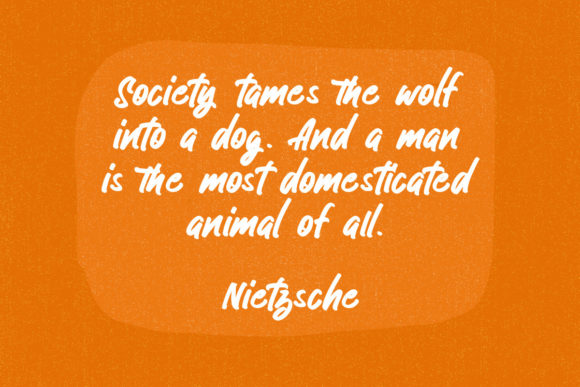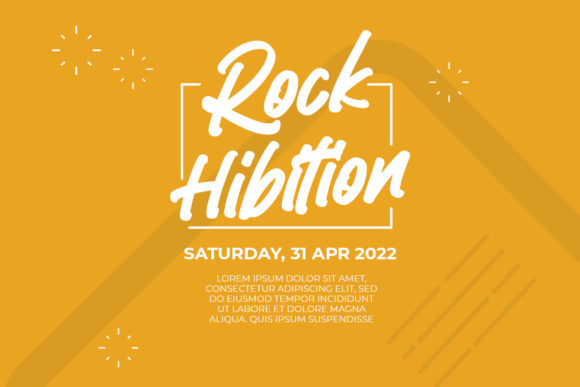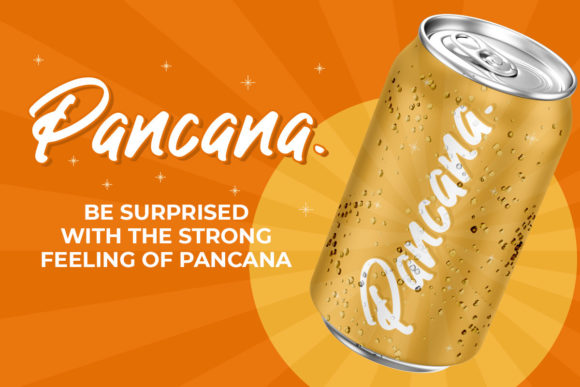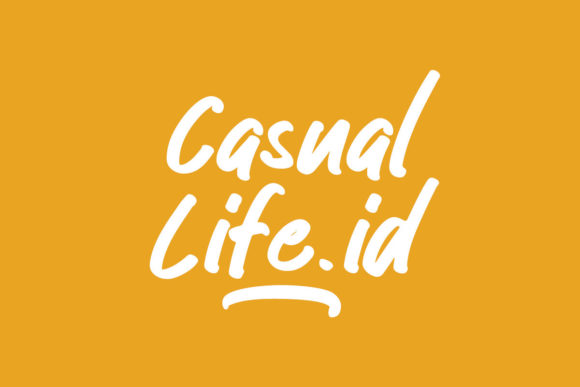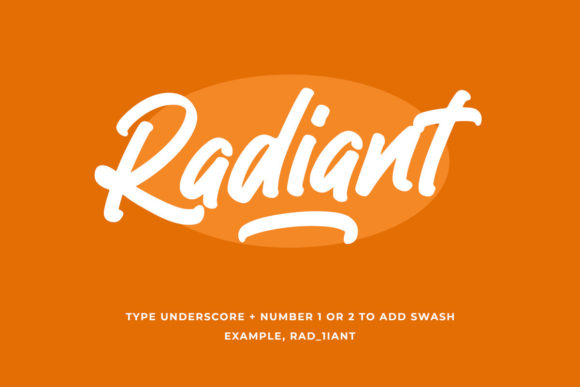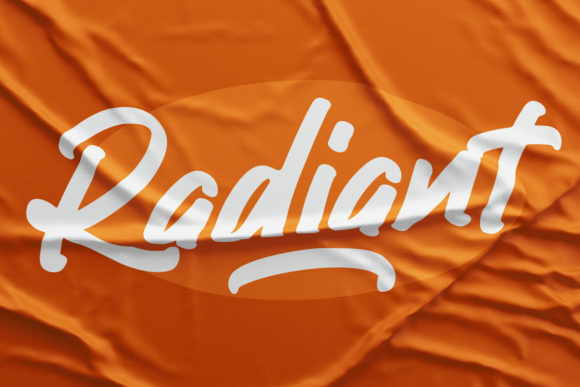
The Designer’s Delight: A Deep Dive into Ballistic Font
I’ll never forget the time I was working on a project for a client who wanted a bold, hand-painted look for their branding. I scoured the internet for the perfect font, but nothing seemed quite right. That was until I stumbled upon Ballistic Font. It was love at first sight! 😍 The cool, paint-brushed handwritten style was exactly what I needed to bring my client’s vision to life. In this article, we’ll explore the ins and outs of Ballistic Font, and how it can become a valuable asset to your font library.
So, what makes Ballistic Font so special? Let’s dive into the good stuff! 🤩
- ✨ Unique and eye-catching design: Ballistic Font stands out from the crowd with its distinctive paint-brushed look.
- ✅ Highly versatile: Whether you’re working on a logo, poster, or social media graphic, Ballistic Font adapts seamlessly to any design.
- 💯 Excellent for headlines and titles: The font’s bold and expressive style makes it perfect for grabbing attention.
Of course, no font is perfect, and Ballistic Font has a few minor quirks:
- 🤔 Limited use for body text: Due to its bold and expressive nature, Ballistic Font may not be the best choice for longer blocks of text.
- ⚠️ Some characters may require manual kerning: While the font is generally well-spaced, some characters may require a bit of manual adjustment for optimal results.
The Story Behind Ballistic Font
Ballistic Font was designed by a team of creatives who wanted to capture the energy and spontaneity of hand-painted lettering. Inspired by the works of street artists and graffiti taggers, they crafted a font that would bring a touch of rebelliousness to any design. The result is a font that’s both bold and beautiful, perfect for designers who want to make a statement.
| Font Name | Ballistic Font |
| Author | Rillatype |
| Q: Is Ballistic Font suitable for body text? | A: While Ballistic Font is a beautiful font, it’s generally better suited for headlines and titles. For body text, you may want to choose a font with better legibility. |